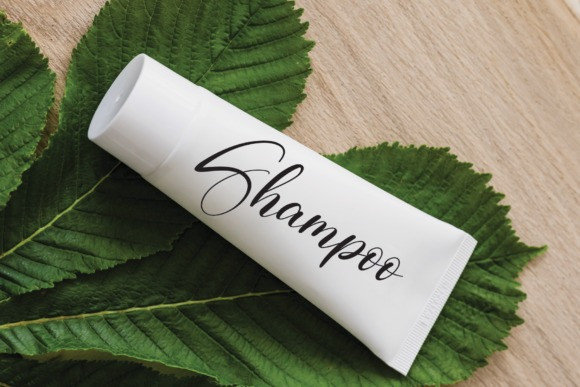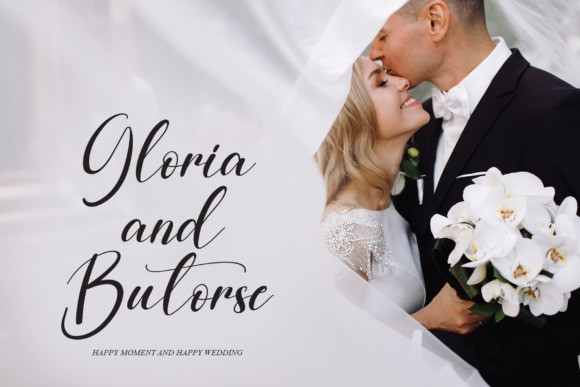
Signature Christmas Font
Signature Christmas Font is a festive and cursive handwritten font. This gentle font will look vivid on a variety of design ideas. It will add a joyful and festive touch to each of your projects!